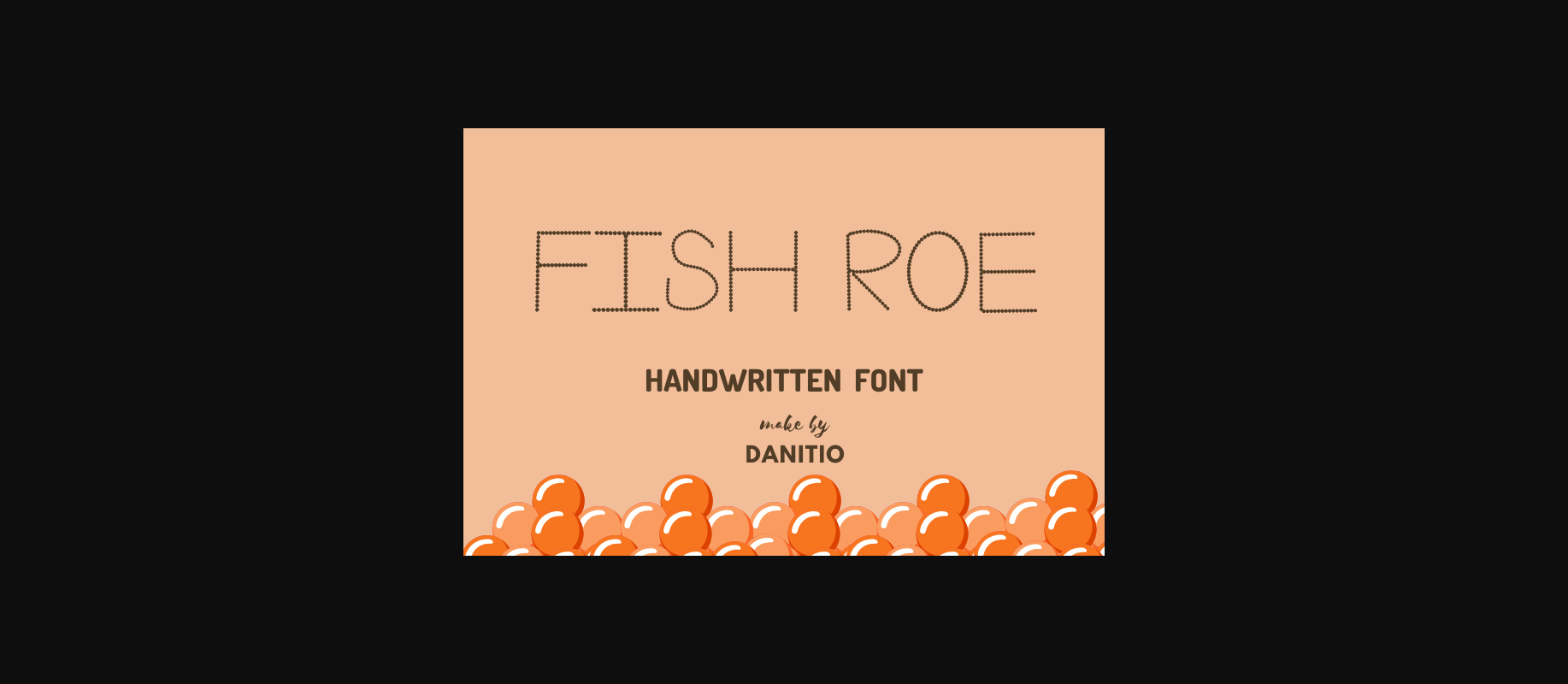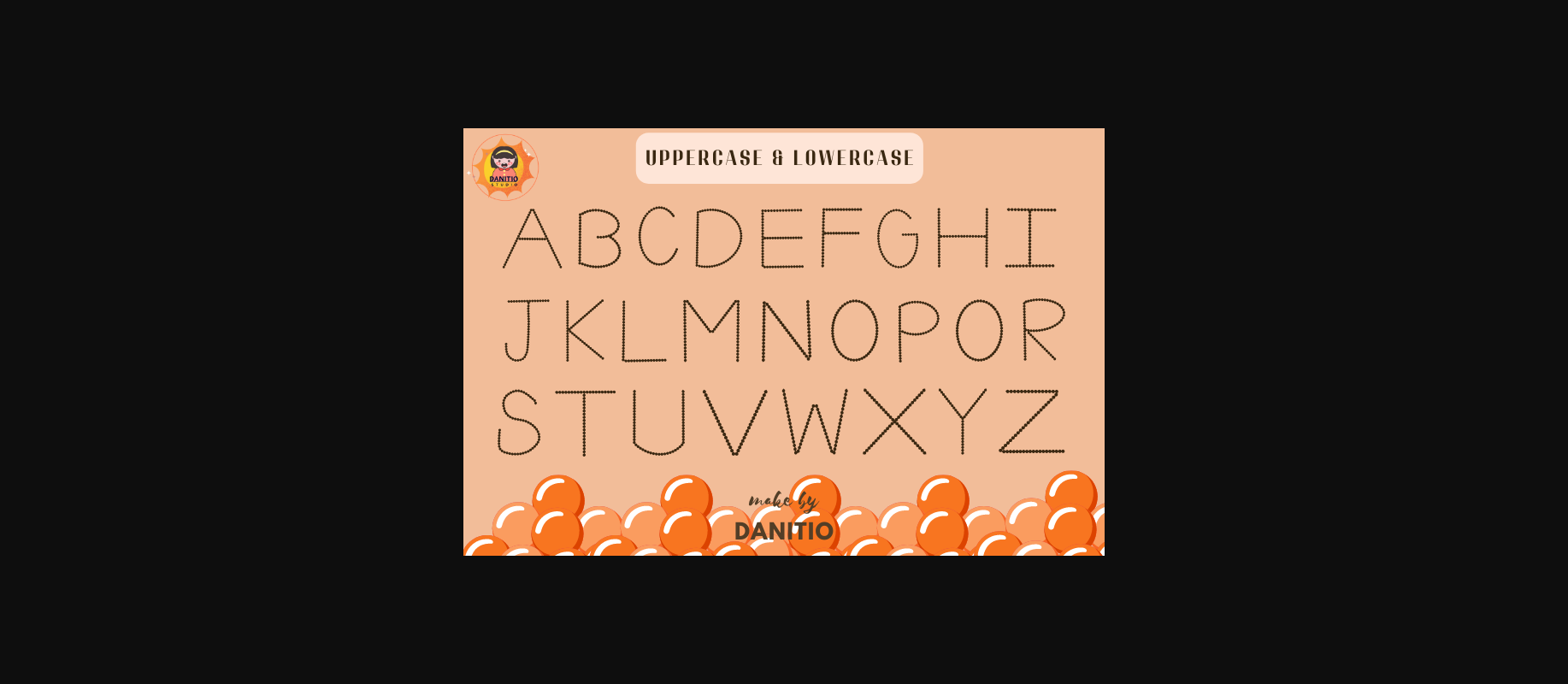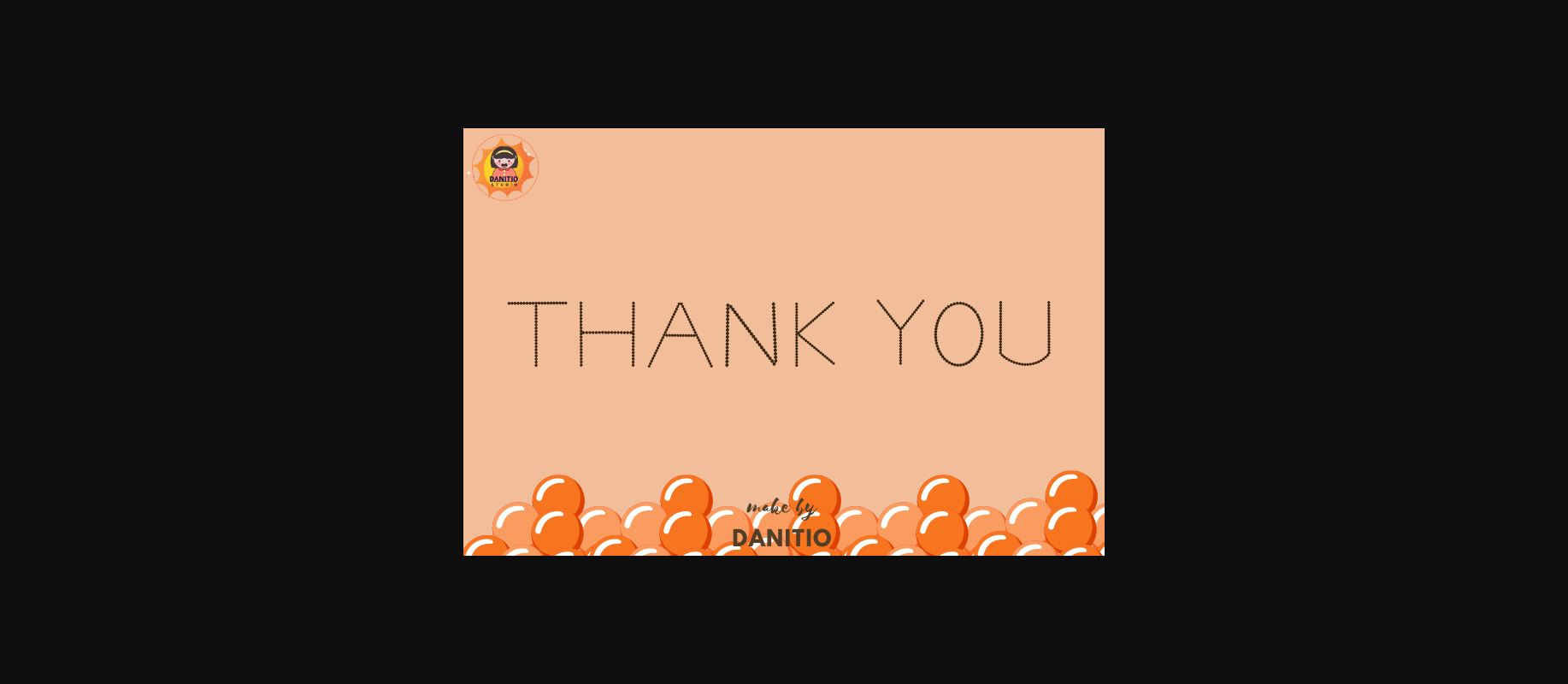
About Fish Roe Font
Fish Roe is a cool, unique, and attractive decorative font. It embodies fun and authenticity. And because of this, it fits into a variety of designs. Just use this font for your various design projects like t-shirt designs, posters, etc. Get creative!